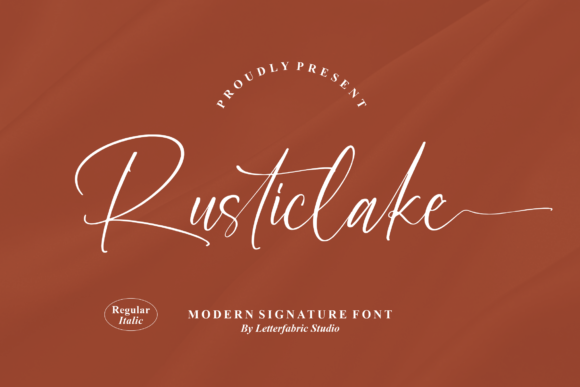
Introducing Rusticlake, the Exquisite Script Font
Immerse yourself in the captivating embrace of Rusticlake, a free-flowing script font that will ignite your creative spirit. With its elegant curves and impeccable character, Rusticlake is the ultimate choice for those seeking a touch of sophistication and charm in their designs.
Unleash the Power of Expressions
Rusticlake transcends the boundaries of ordinary fonts, becoming a vessel for your emotions and expressions. Its graceful strokes evoke a sense of warmth and intimacy, making it the perfect companion for heartfelt letters, enchanting invitations, and captivating posters.
Elevate Your Culinary Delights
Elevate your culinary creations to new heights with Rusticlake. Its whimsical character adds a touch of whimsy and allure to menus, packaging, and promotional materials. Let the flavors dance on the page, guided by the enchanting curves of Rusticlake.
Craft Unforgettable Invites
Create invitations that leave a lasting impression with Rusticlake. Its delicate strokes will gracefully guide your guests to the most cherished moments of your life. From weddings to special events, Rusticlake will add a touch of timeless elegance to your celebrations.
Ignite Your Creative Soul
Let Rusticlake ignite your creative soul and inspire masterpieces. Its versatility knows no bounds, from eye-catching flyers to captivating mockups. Each letter is a stroke of genius, empowering you to bring your artistic visions to life.
Embark on a Journey of Beauty
Rusticlake is more than just a font; it's an invitation to embark on a journey of beauty and creativity. With its exceptional quality, you can elevate your designs to unparalleled heights, leaving an unforgettable mark on the hearts of your audience.